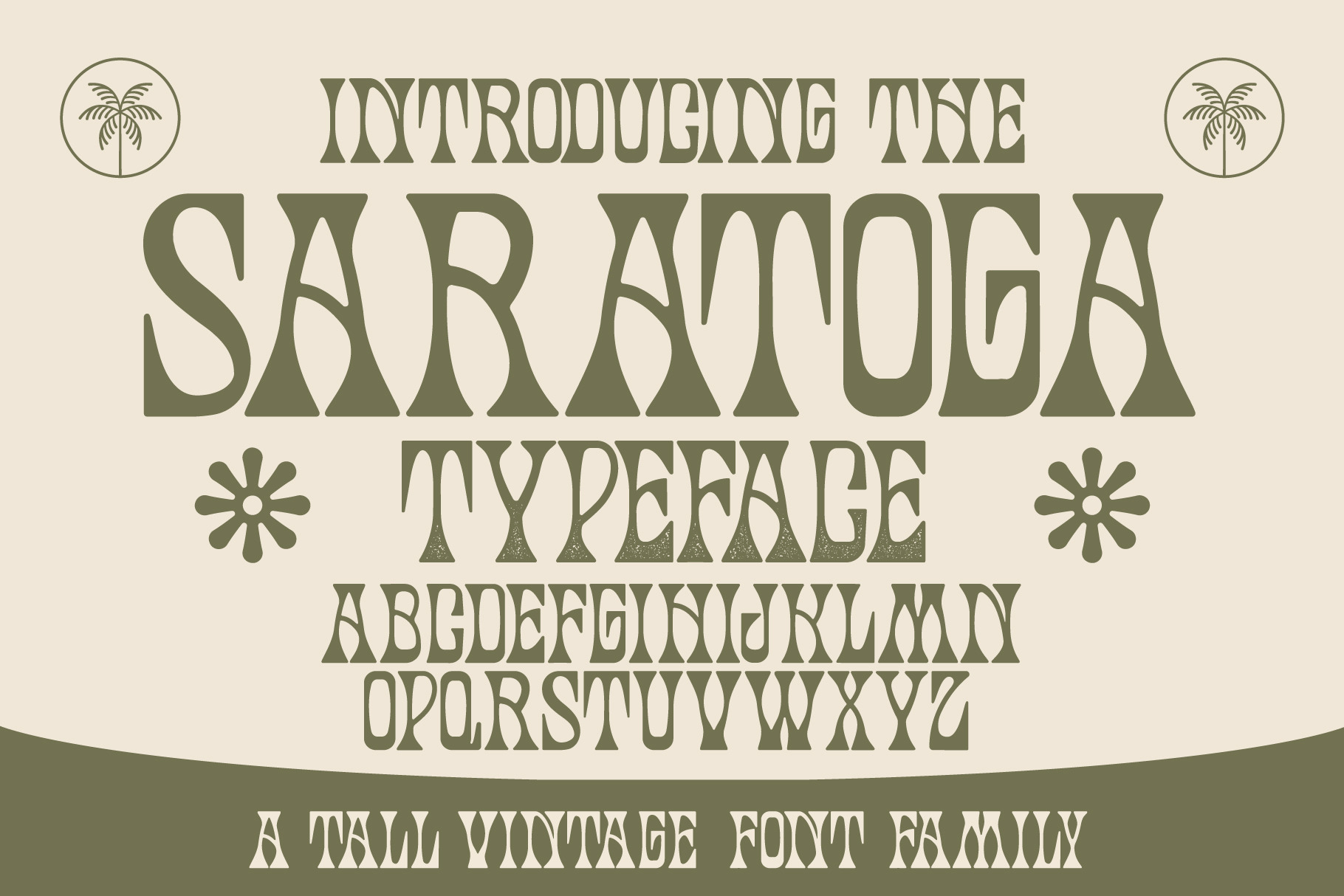
Saratoga Typeface | Groovy Font
35% off for the first day! The Saratoga Typeface is a groovy semi-serif typeface. This blast from the past comes in two font styles including Saratoga Regular as well as a textured version inspired by vintage psychedelic posters.